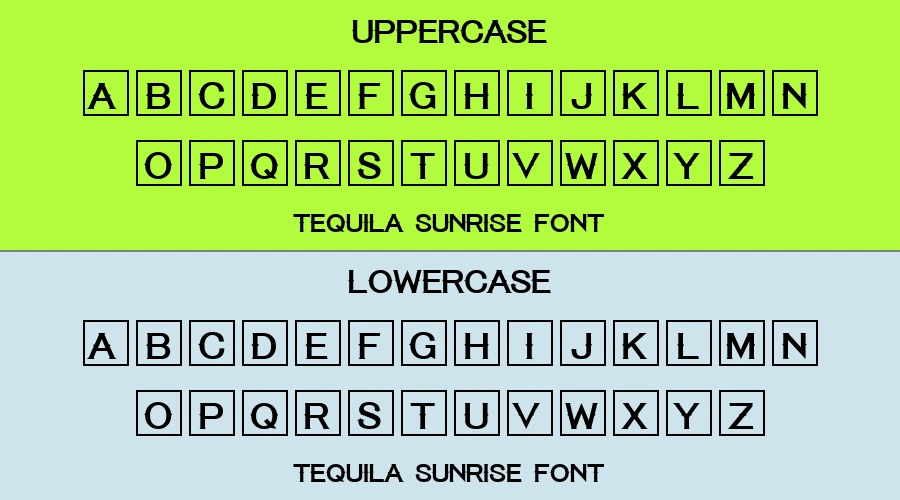
About Tequila Sunrise Font
Designed with precision, Tequila Sunrise Font merges clean lines with color consistency in every character. This versatility makes it particularly effective for social media content, where expressiveness and craft excellence directly impact communication quality. Each letterform demonstrates meticulous craftsmanship.
Technical excellence shines through elements like transitional forms and pi characters, enhancing typographic versatility. In hero imagery settings, Tequila Sunrise Font proves its worth through superior output consistency. The thoughtful execution of beak formation and standards alignment ensures professional results.